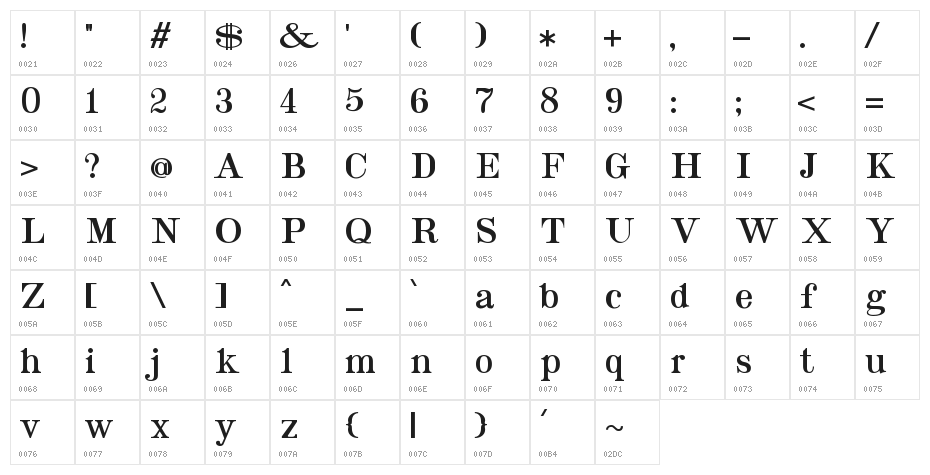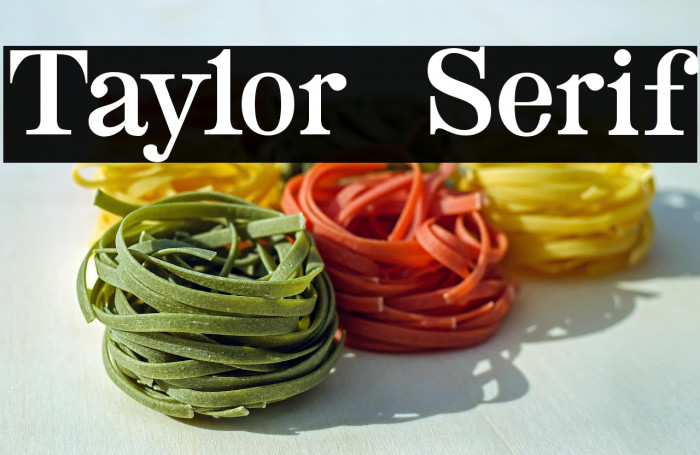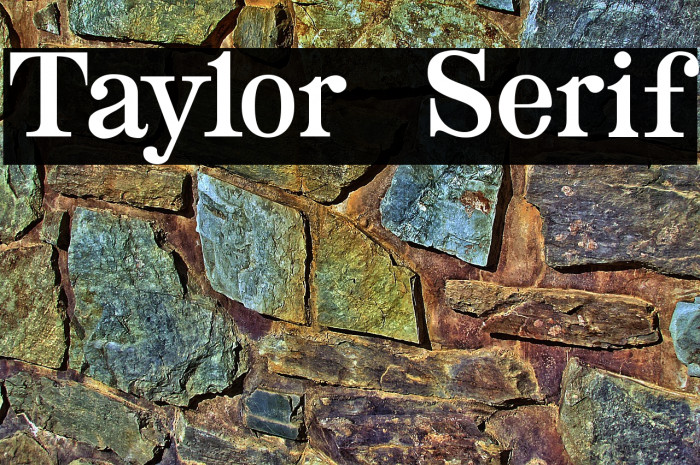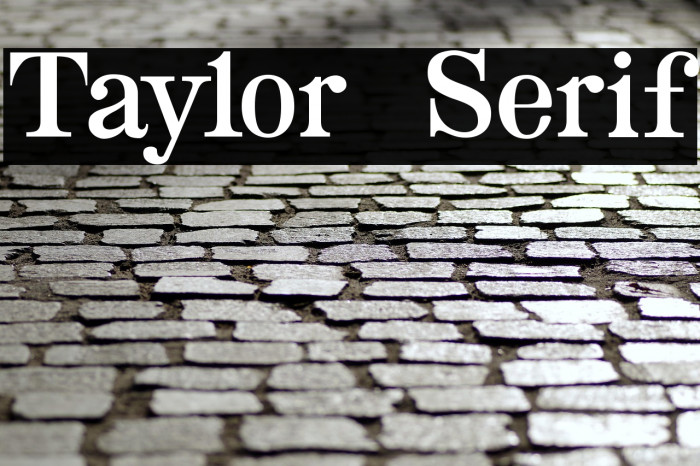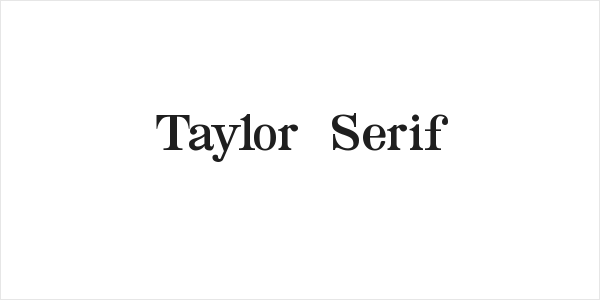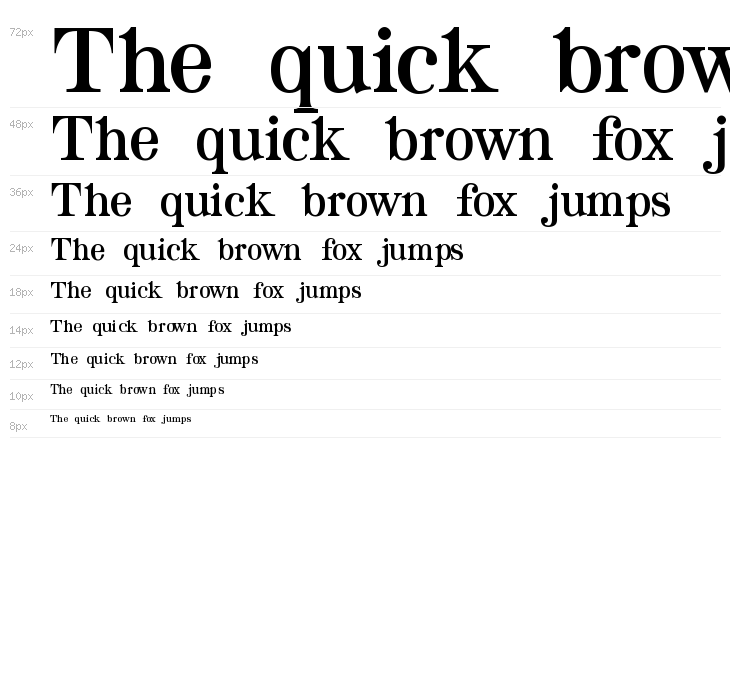
Taylor Serif Font
This font features a classic serif style with pronounced, elegant serifs that give it a timeless and sophisticated appearance. The uppercase letters are bold and commanding, while the lowercase letters maintain a consistent and harmonious flow. The numerals are clear and distinct, making them easily readable. Special characters are well-integrated, maintaining the overall aesthetic of the font. The strokes are moderately thick, providing a medium contrast that enhances readability without sacrificing style. This font is versatile, suitable for both formal and creative applications, and it exudes a sense of tradition and reliability.
A classic serif font with elegant serifs and medium contrast, ideal for formal and creative uses.
- Proposed Projects: Ideal for book covers, editorial design, branding, and formal invitations.
- Overall Style: Classic